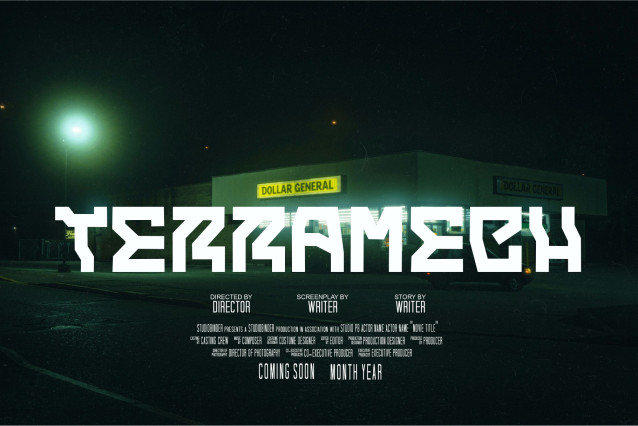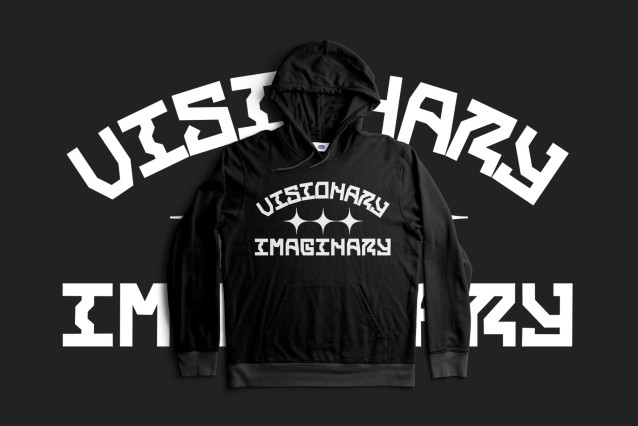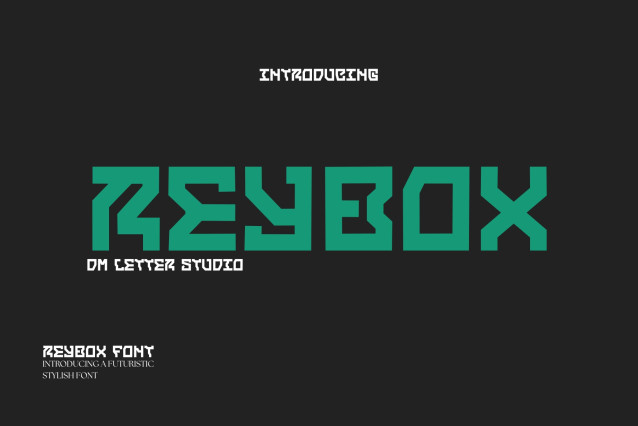
Reybox Futuristic Font
Reybox Futuristic Font is a sleek and modern futuristic font designed for cutting-edge aesthetics and forward-thinking projects. With geometric shapes, sharp angles, and sci-fi flair, Reybox is perfect for tech branding, space-themed posters, digital interfaces, and visionary logo design. It brings a high-tech edge to any creative work.